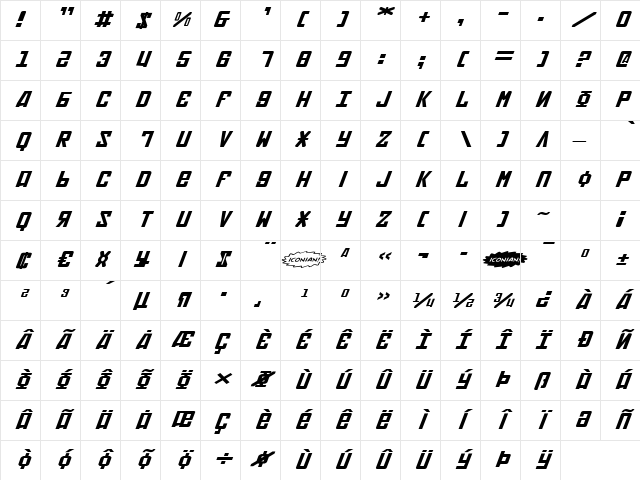
Complete Soviet Expanded Italic glyph index. Displaying only characters natively supported by Soviet Expanded Italic font.
Soviet Expanded Italic is a composed and adaptable typeface that performs quietly and consistently across a wide range of design contexts. The slanted form adds forward momentum and visual energy.